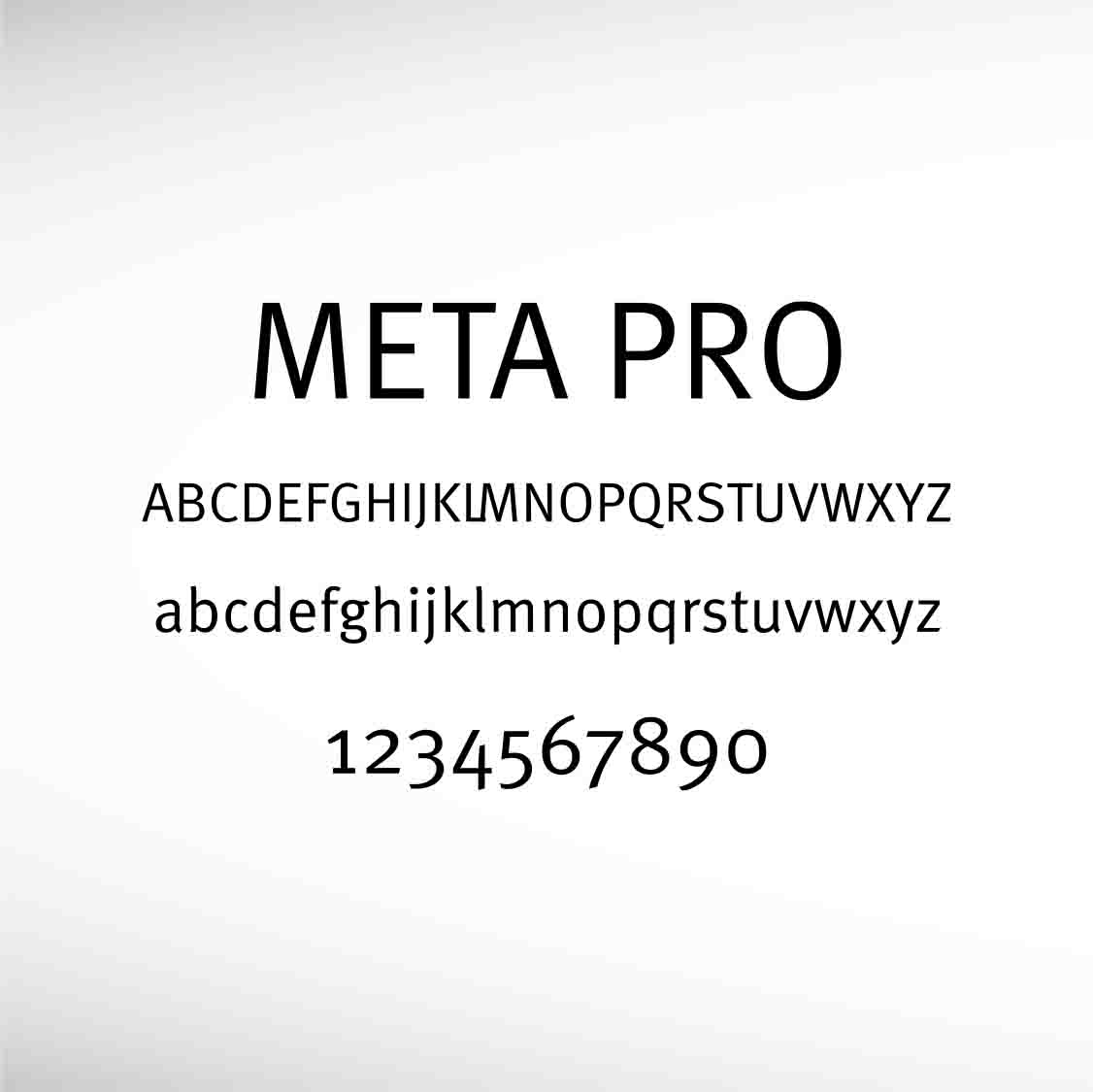
Meta Pro Family by Erik Spiekermann. Meta Pro is the perfect font for all your fun designs. The font subfamily is Regular.
Designed by Erik Spiekermann | TrueType Font